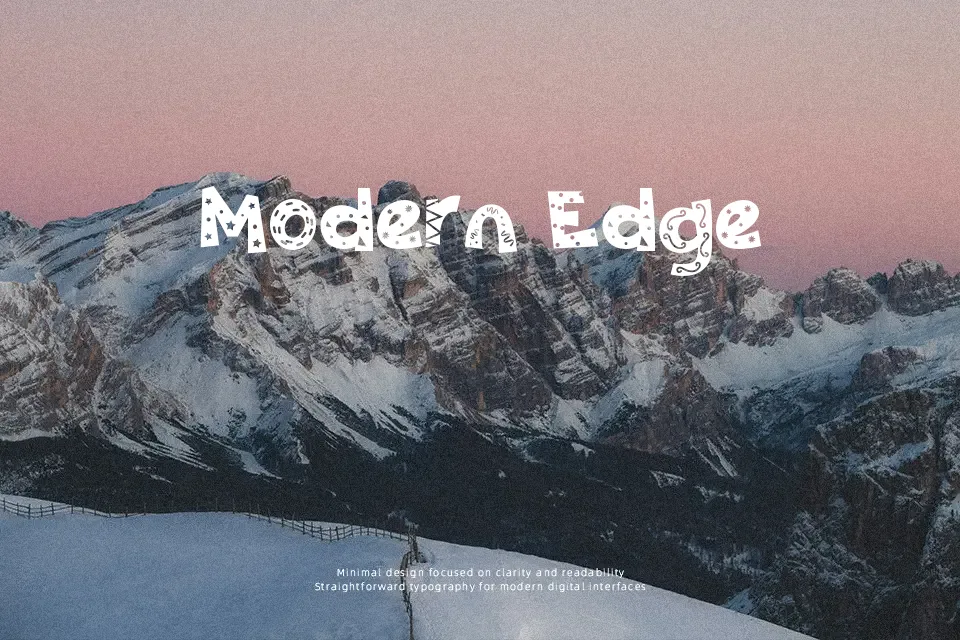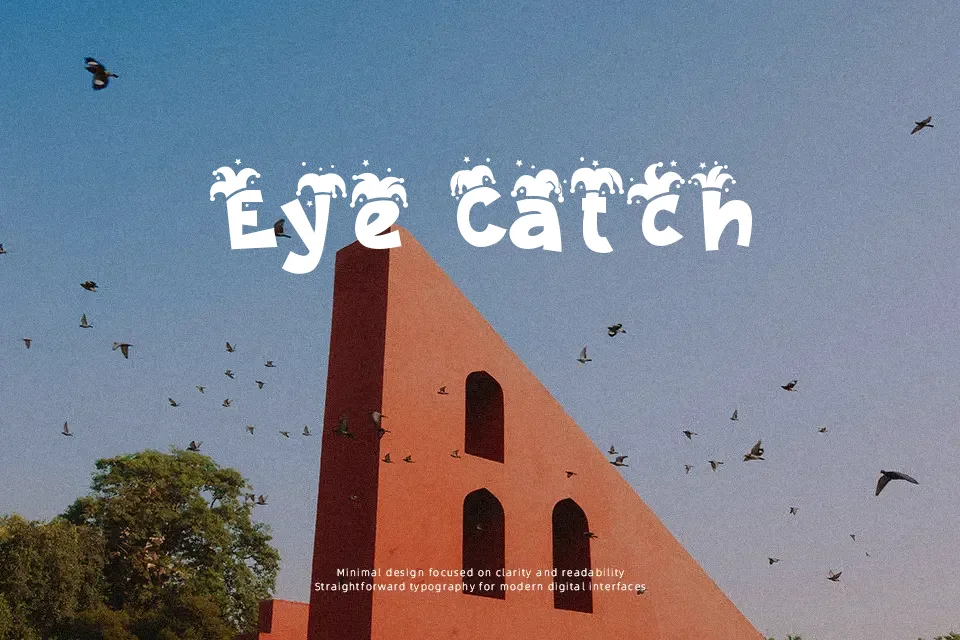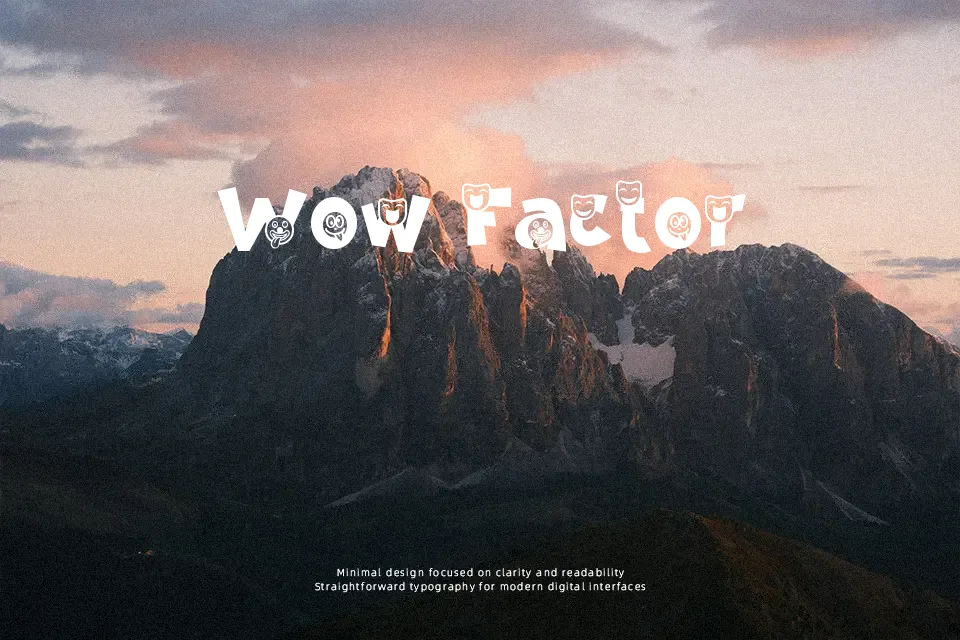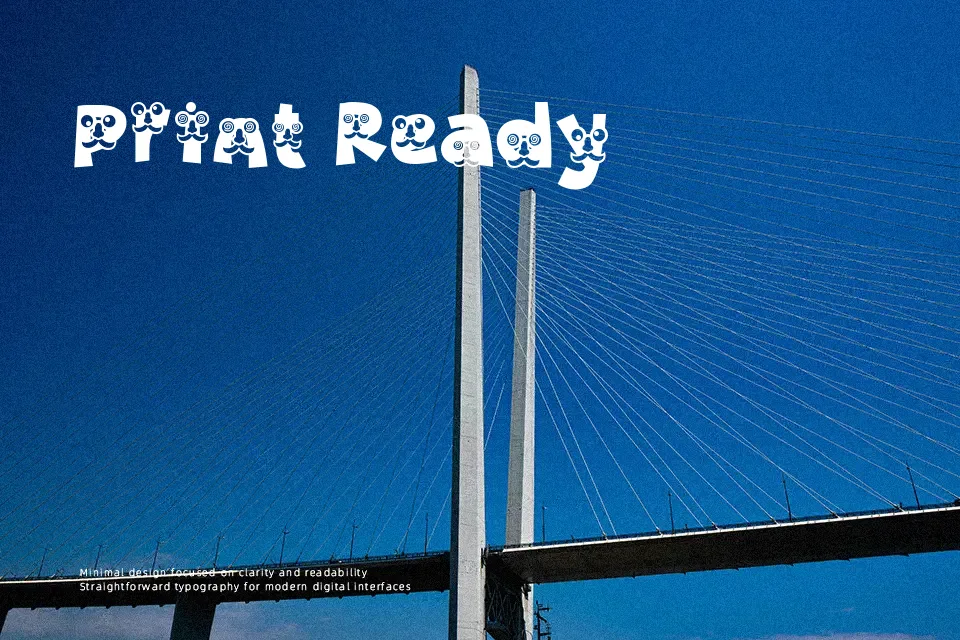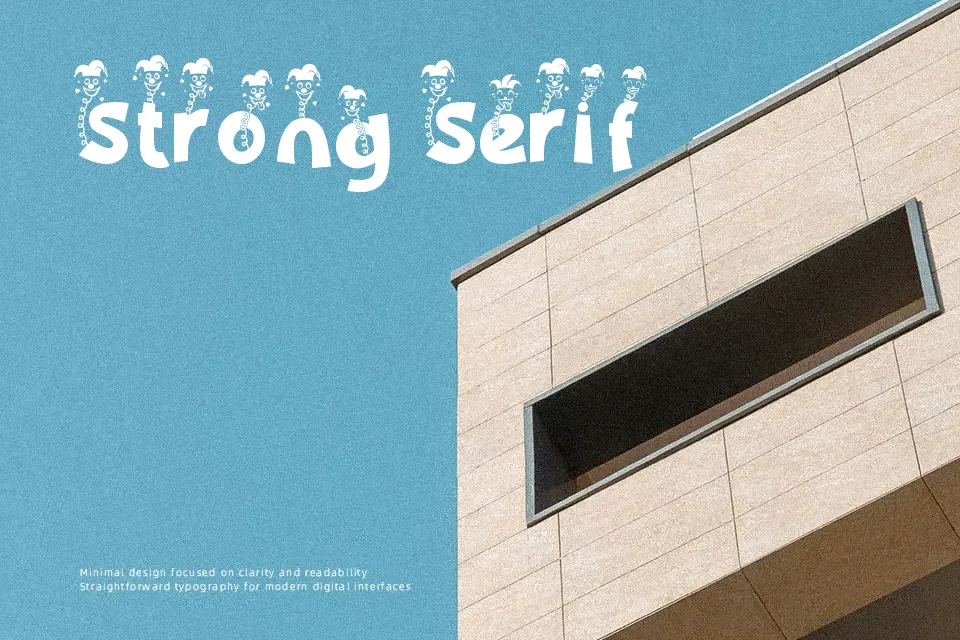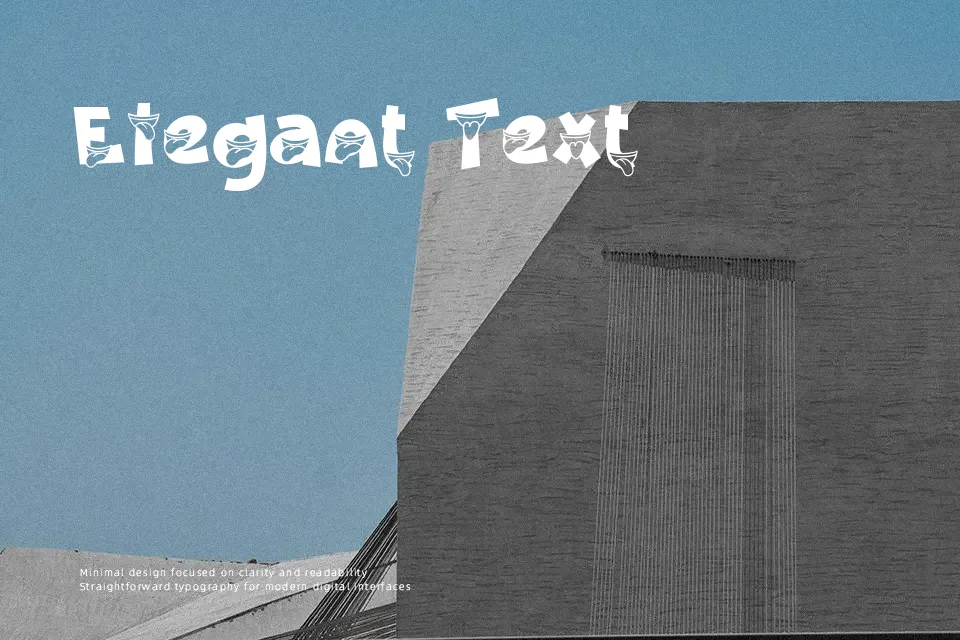
Night Clown Font
Night Clown presents a set of exaggerated, decorative letterforms with uneven strokes, varied internal spacing, and compact proportions that immediately read as playful and attention-seeking in display settings. The design leans on irregular contours, heavy outlines, and dense detailing, so the spacing feels visually tight and works best when the text is kept short. The stroke style appears bold and fairly consistent, emphasizing silhouettes rather than subtle contrast, which helps maintain impact at larger sizes. At medium display sizes it remains legible for headlines and short phrases, but the crowded forms and decorative complexity reduce comfort in longer lines. The letterforms are visually engaging for themed graphics, though the same traits make them less effective in small captions or interface text.
party or event posters
themed logo lockups
headline text on flyers
playful social media graphics